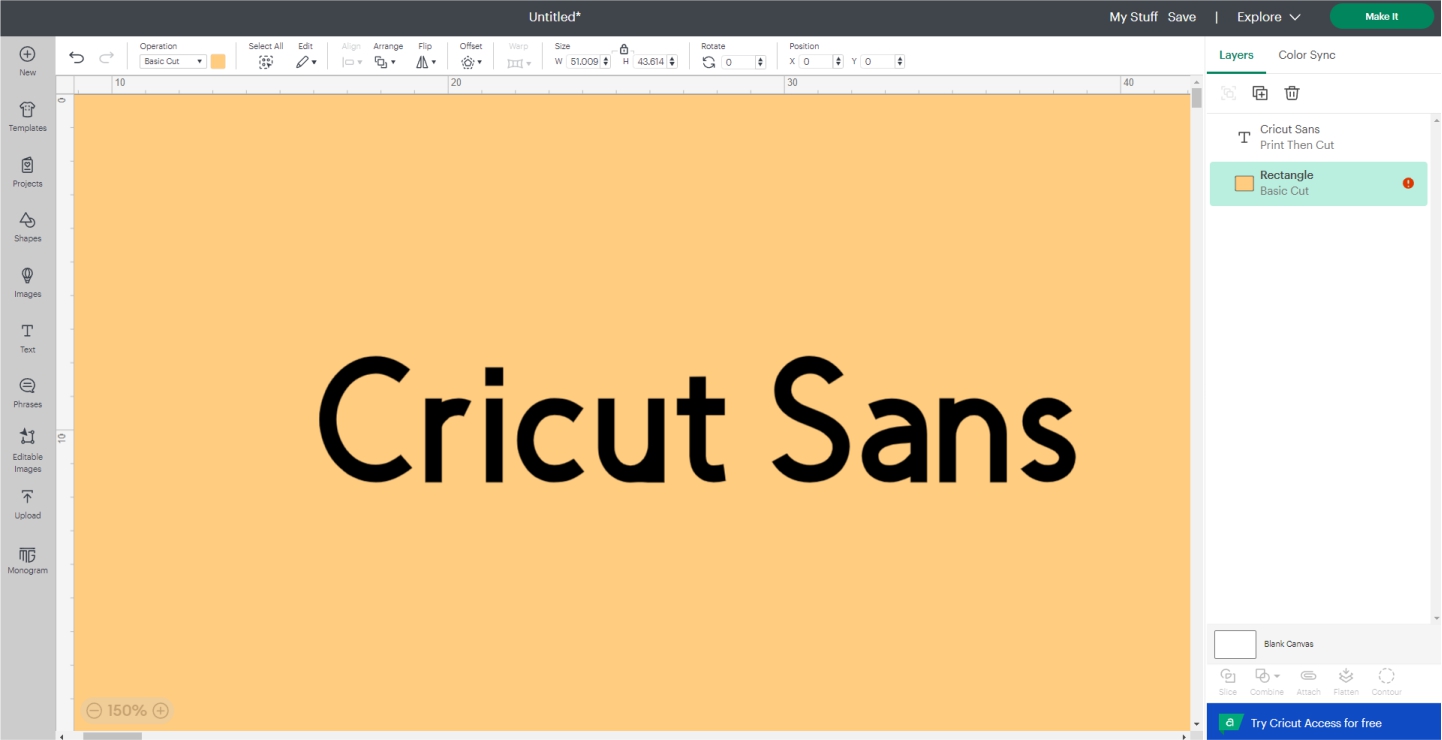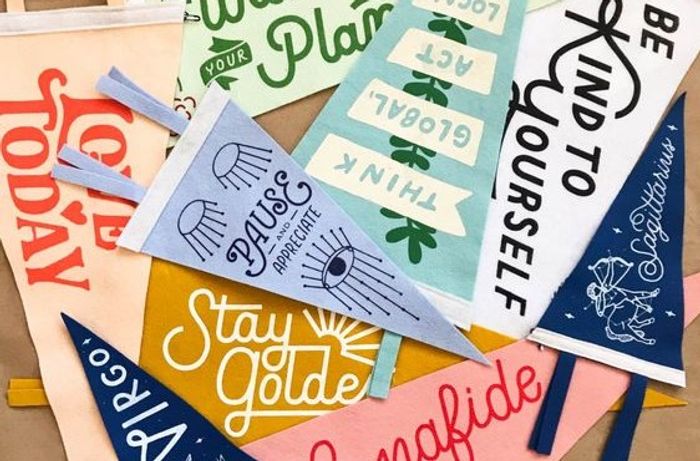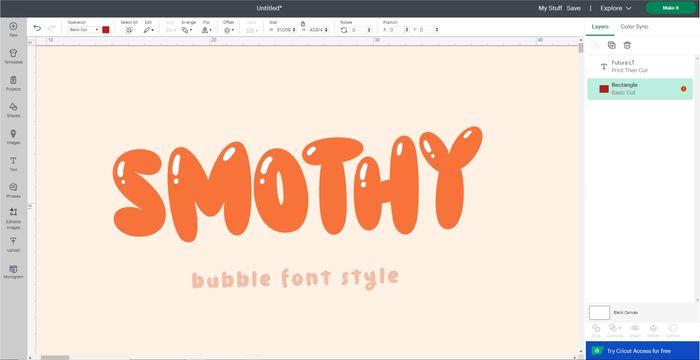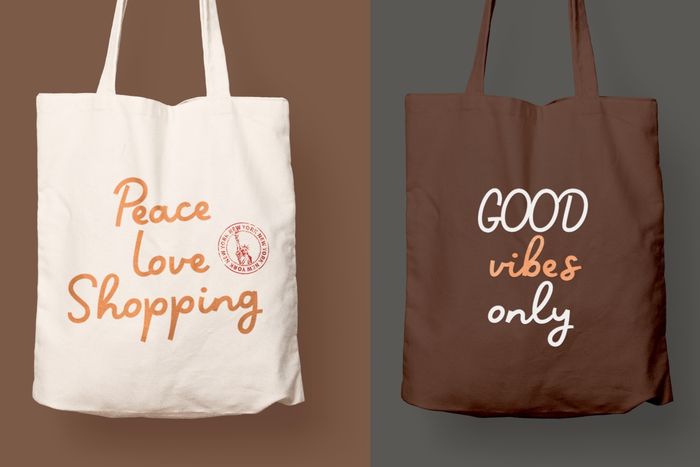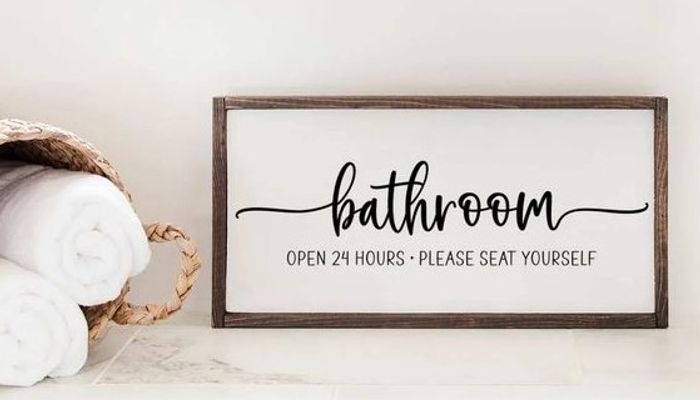
9 Intriguing Cricut Fonts You Should Try for Any Craft Project
Raise your hand if you love crafty fonts for your creative projects! Especially for Cricut users, you can find virtually boundless font choices in its renowned Design Space. Preloaded with tons of Cricut fonts, the software offers ready-to-use options, not to mention other fonts available that you have previously downloaded on your device.
The Cricut fonts and machines are popular not only among professionals but also for those who are new to designing or crafting. Some use them for serious business, while others simply channel their hobbies.
Let’s start by discussing what Cricut fonts are, followed by several examples of fonts cricut ideas for your crafty projects.
What are Circuit Fonts?
We will have a definition comparison here, namely between the so-called Cricut fonts and System fonts.
The first is Cricut fonts, the fonts you need to preload to the Design Space software beforehand. Some of them have a green “a” mark and may charge you a fee, depending on your Cricut access subscription.
Moreover, Cricut fonts are specially coded to cut perfectly through any Cricut machine you use. Once again, if you have your Cricut Access, you will find endless options for more than 400 fonts.
What about the System fonts? They are fonts that you have downloaded to your device, like a personal computer or tablet. If you already have Design Space, the software automatically loads them.
You can quickly sort by Cricut or System fonts in the fonts window by simply hitting the click of the corresponding word. Or else, if you want to see all the available fonts, just click “all.”
Cricut Fonts that Work Best for Any Project
Get stuck into picking the right font for your design or craft? Why don’t you go back to the easy-to-go options of Cricut fonts available in the Design Space? The following are three fonts you can consider using.
Not only minimal and clean, they are also easy-to-weed and easy-to-read Cricut fonts that go well with any type of creative project. Recommended especially for beginners, you probably have known or even made them your favorite.
1. Futura
Futura is an easy-to-read font, whether you want it in a small or big cut, making it perfect for label making. For instance, you can create labels for little spice jars or other bigger containers.
2. Cricut Sans
A default font that comes up every time you open a text box in a new project of Design space, Cricut Sans is dubbed the Arial in the world of Cricut fonts. A highly easy-to-read font, Cricut Sans is indeed a timeless choice.
3. Typewriter
A faultless mix of modern and vintage, the classic Typewriter is the best option for labels, iron-ons, stickers, and more in between. It never goes wrong with Typewriter font since it offers a classy touch and fun at the same time.
Expanding Your Cricut Fonts List
Are you looking for more Cricut fonts for your cut or drawing projects? Just in case you don’t have a Cricut Access subscription, you can turn to other budget-friendly or free fonts you can use in the Cricut Design Space.
The font options are limitless – script, serif, handwritten, san serif, specialty, and more. Check out some of the specialty and crafty fonts below.
1. Happy Monday Font
Want to add a touch of retro vibe to your design? Try this bold display retro font. You can apply this font to any project, including Cricut fonts-based projects, logotypes, packaging designs, stickers, t-shirts or other apparel industries, headlines, posters, social media platforms, books or magazines, websites, and more.
2. August Font
Spring is coming. Add this pleasant monoline font with a flower-themed design to your spring creative or crafting projects. It will undoubtedly leave a long-lasting effect and even spark emotions.
3. Smothy Font
A bubble-style display font that is not only cute but also fun to look at. A pack of Smothy font consists of three font types or versions: Regular, Bubble, and Shadow. Cricut users or crafters can use it for commercial and creative design projects.
4. Paw Wow Font
Who doesn’t love a dog-themed design or craft? Paw Wow font offers a cute cursive display font that has lovely dog clip art as a feature. There are four style fonts in a pack: Paw Wow, Paw Wow Outline, Paw Wow Block, and Paw Wow clipart.
5. Love Spark Font
As the name implies, Love Spart is a paint-brushed script font that has a relaxed and warm-hearted design. This font is perfect for your personalized-style creative projects. It would make gorgeous wedding invitations, greeting cards, thank you cards, and more.
6. Great Notes